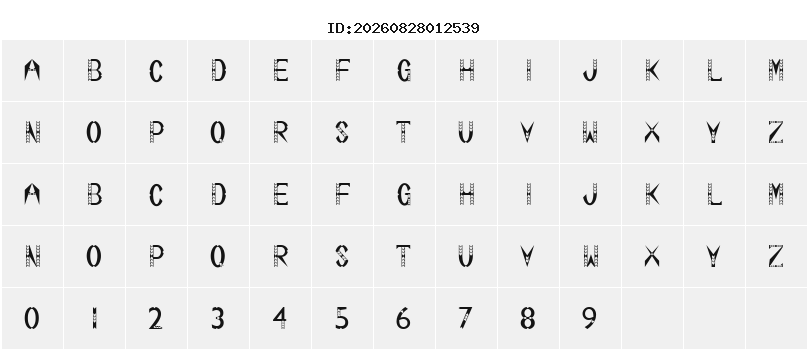
Tsalagi Preview
• Font Name: Tsalagi
• Font ID: Gill Sans; 6.1d9e1; 2009-03-26
• Full Font Name: Tsalagi
• Version: 6.1d9e1
• PostScript Name: Tsalagi
• Character Count: 89
• Designer: Eric Gill
• Manufacturer: Eric Gill
About Tsalagi.ttf
Tsalagi.ttf is a modern, elegant sans-serif font designed for ultimate readability and visual harmony. Perfect for branding, headlines, web design, and print materials.